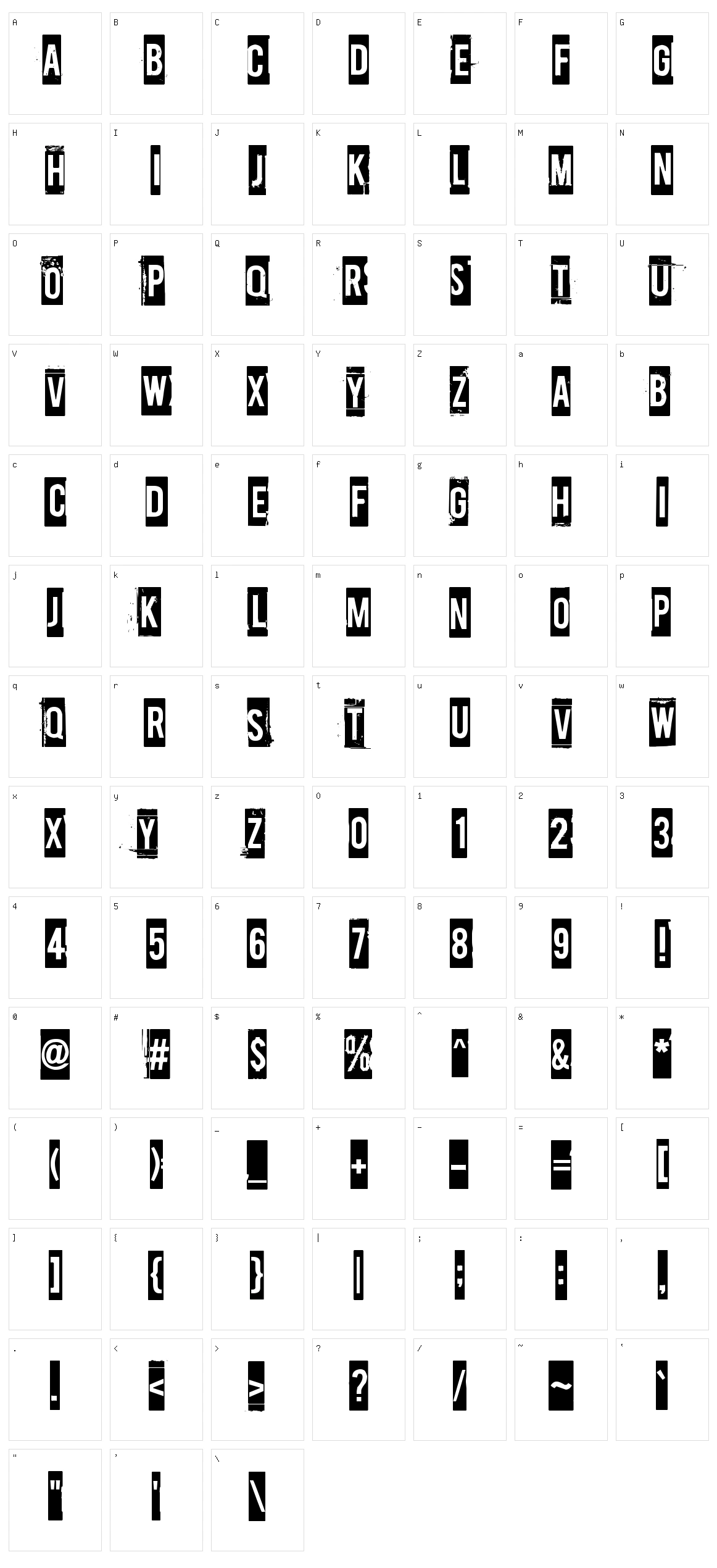
The free font Payday is carefully designed by junkohanhero, showcasing a thoughtful balance of creativity and usability and falls under the Eroded font style. When you download the ZIP file, it contains only 48.8 KB of font files, making it lightweight and quick to download. Please review the license details below to understand permitted usage and distribution rights. If license information is not available, we recommend using this font for personal projects only or contacting the author directly for commercial usage permissions.